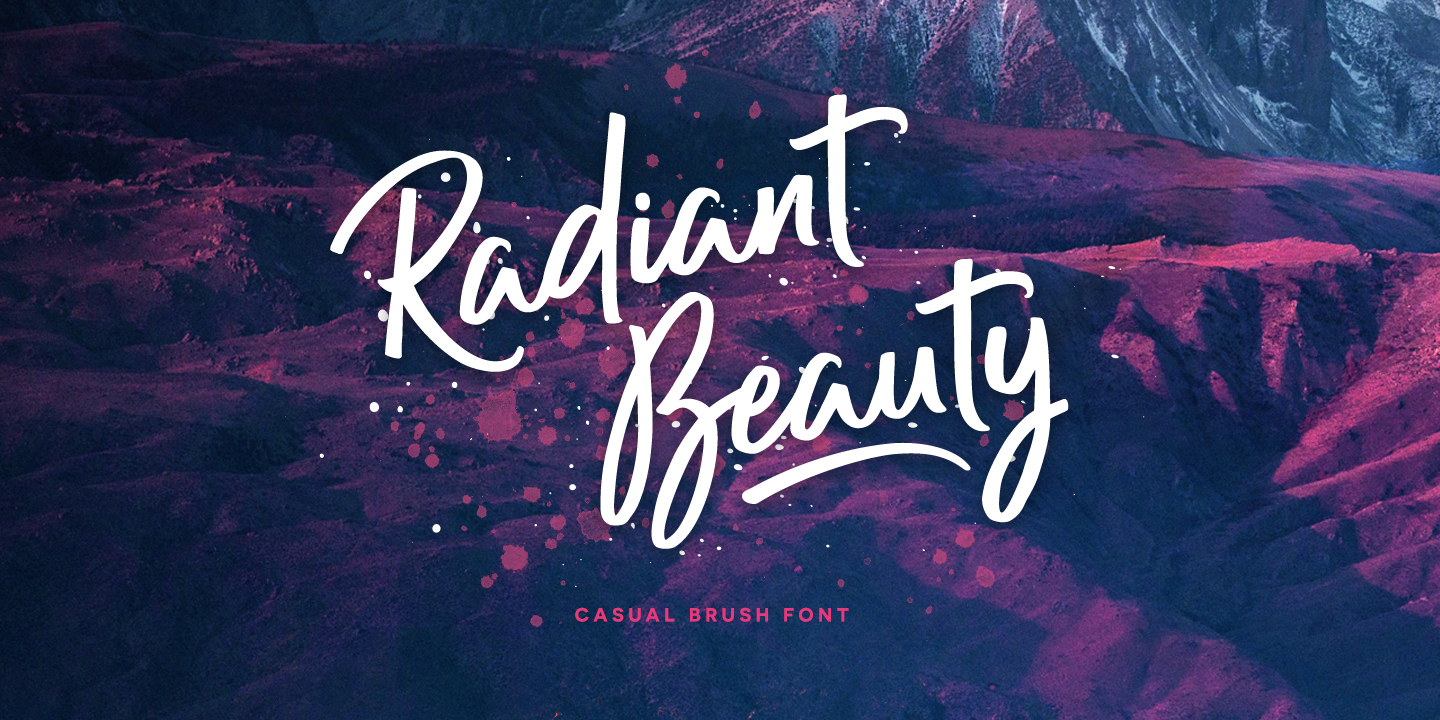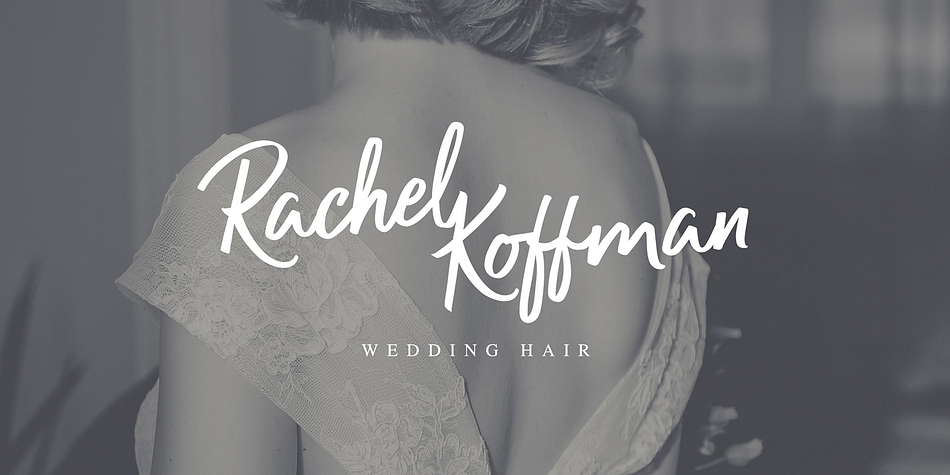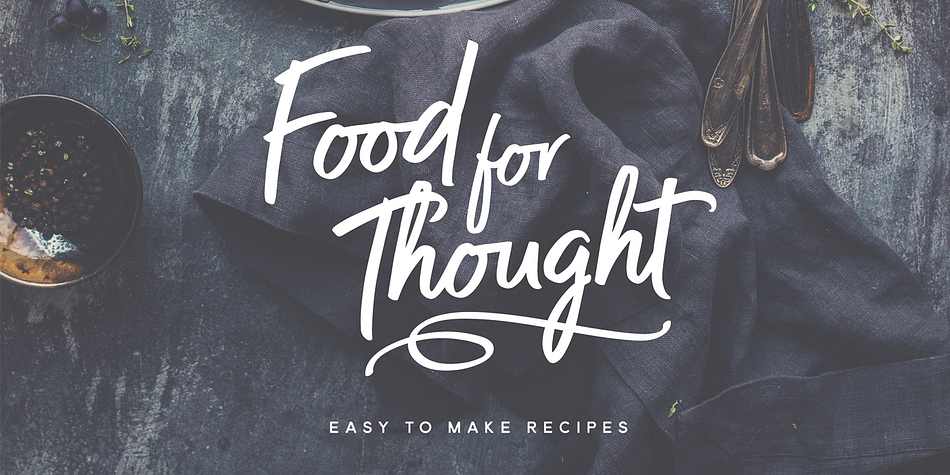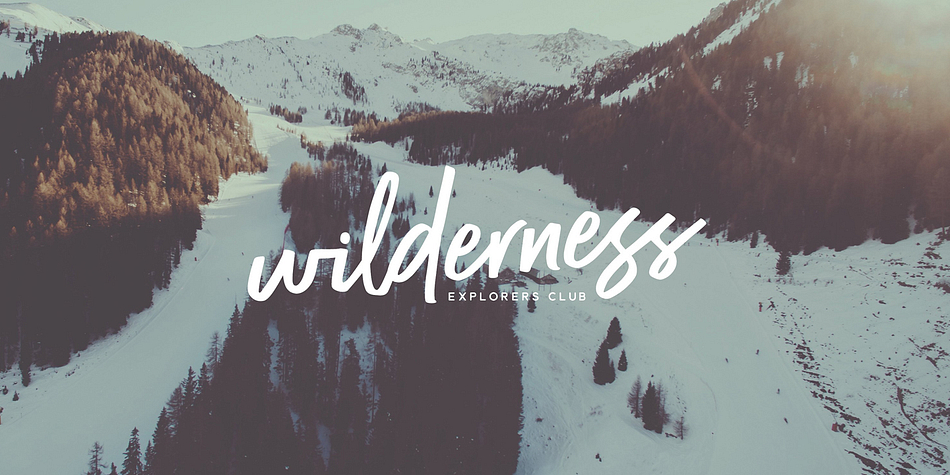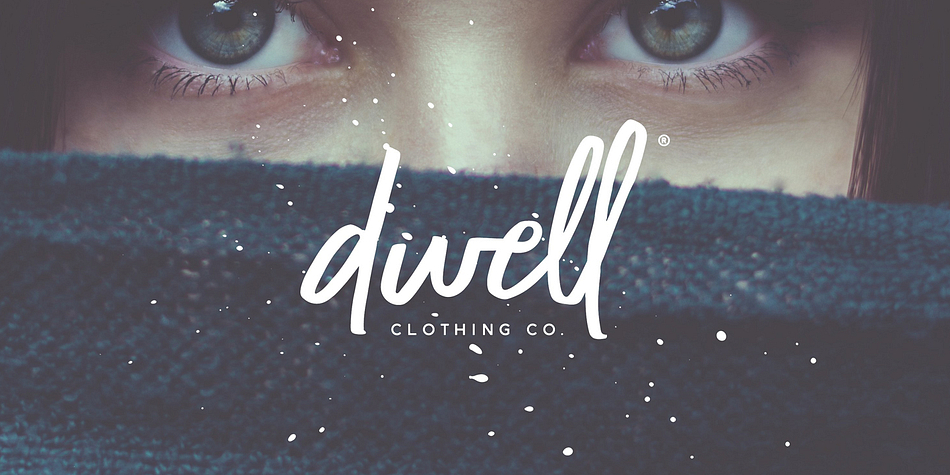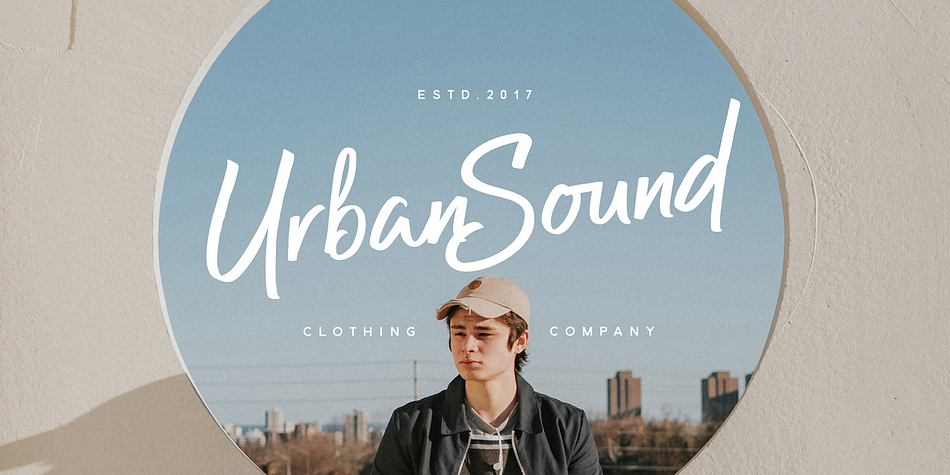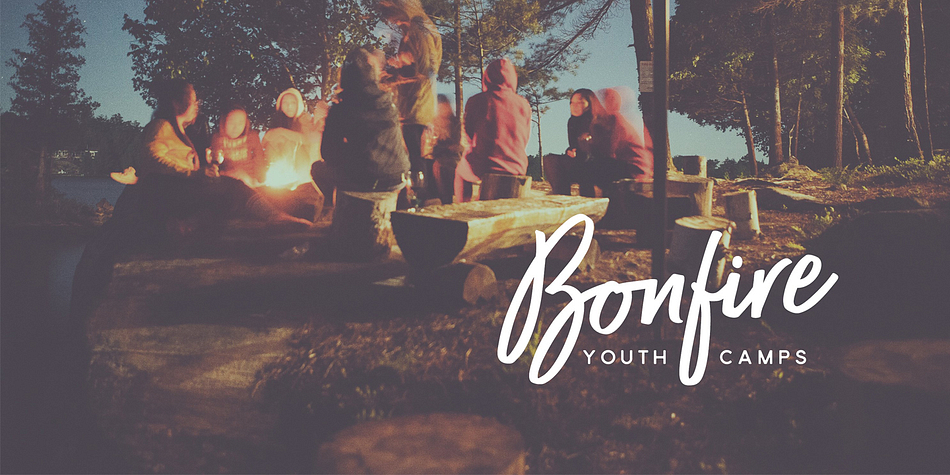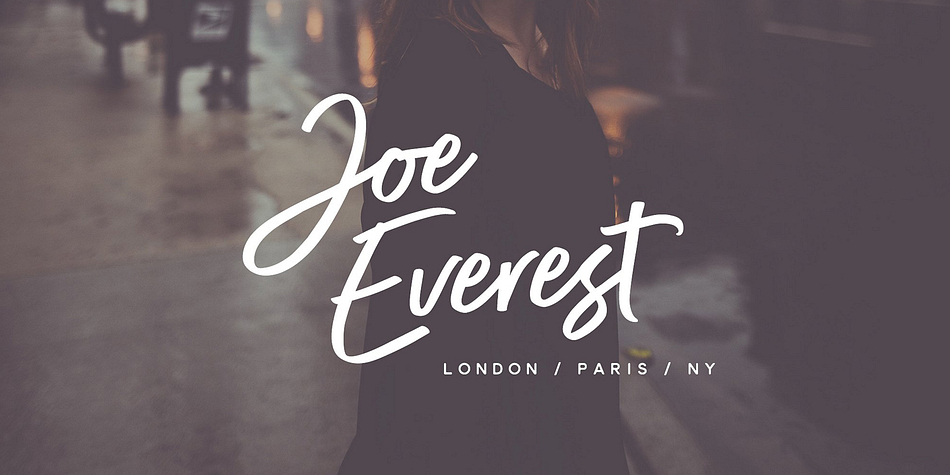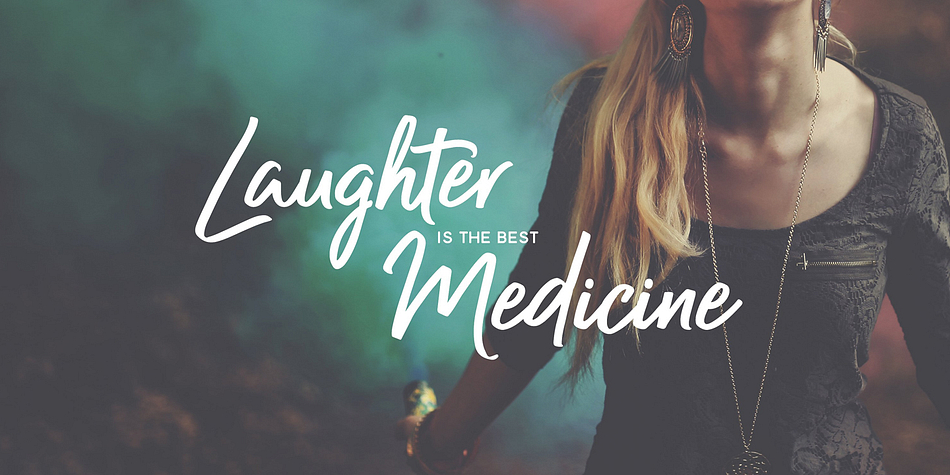
Designed by Ian Barnard, Radiant Beauty is a script and dingbat font family. This typeface has two styles and was published by Ian Barnard.
Introducing Radiant Beauty. A font created to give an authentic hand drawn look but still keeping that readability and clarity which customers and clients love.
1. Radiant Beauty Typeface
Hand-drawn with a chisel tip marker, clean up with Adobe Illustrator and tweaked in my font editor to give clear hand drawn letters. Includes OpenType features for double letters.
2. Radiant Beauty Swashes
A collection of 26 different swashes to emphasize words and phrase in keeping with the main typeface.